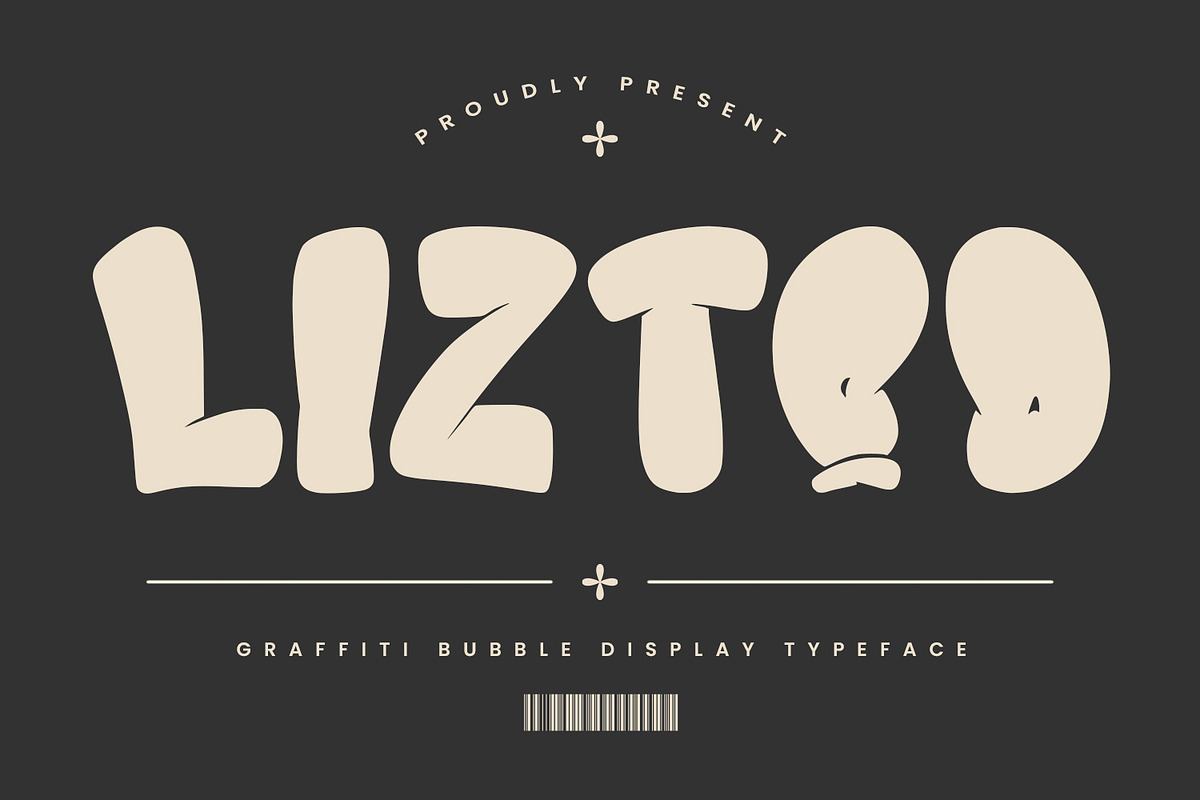
Liztoo Graffiti Bubble Display Font Free Download is a bold and expressive typeface that captures the energy and vibrancy of street art and urban culture. With its bubble-like letterforms and graffiti-inspired style, Liztoo is perfect for creating energetic designs, graffiti-style posters, music artwork, streetwear branding, and any project that needs a loud, colorful personality.
Liztoo Graffiti Bubble Display Font Free Download brings a playful and rebellious attitude to your typography. Its thick strokes and round, bubbly shapes make it stand out in both digital and print media, making it an ideal choice for designs that need to be bold and full of life.